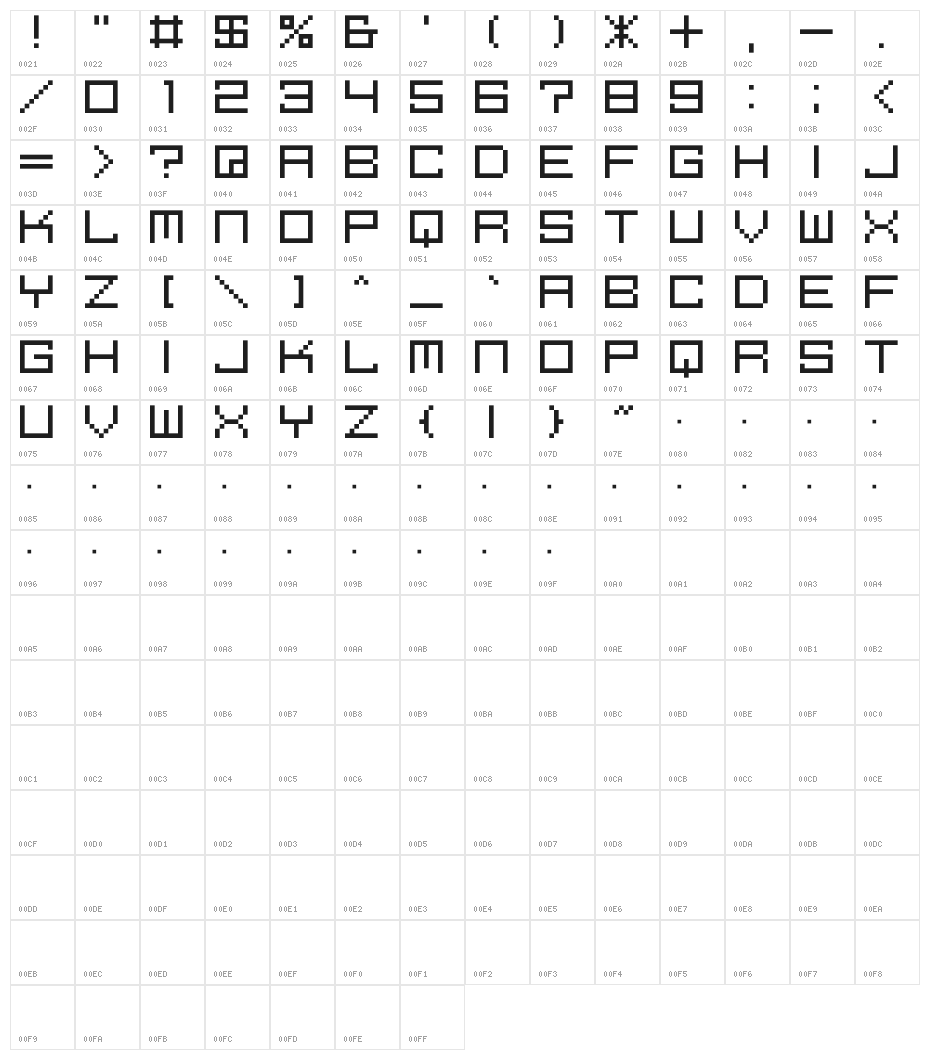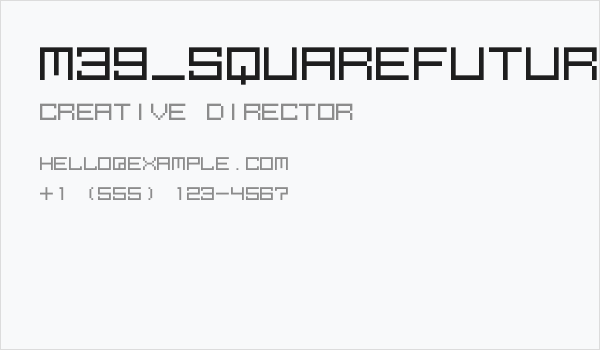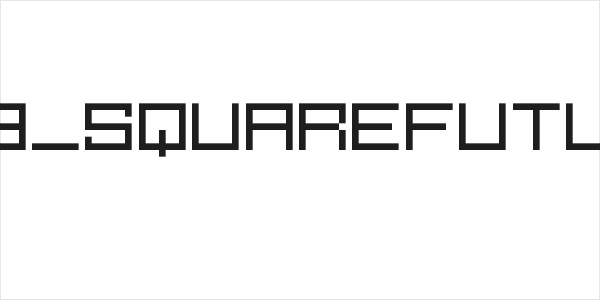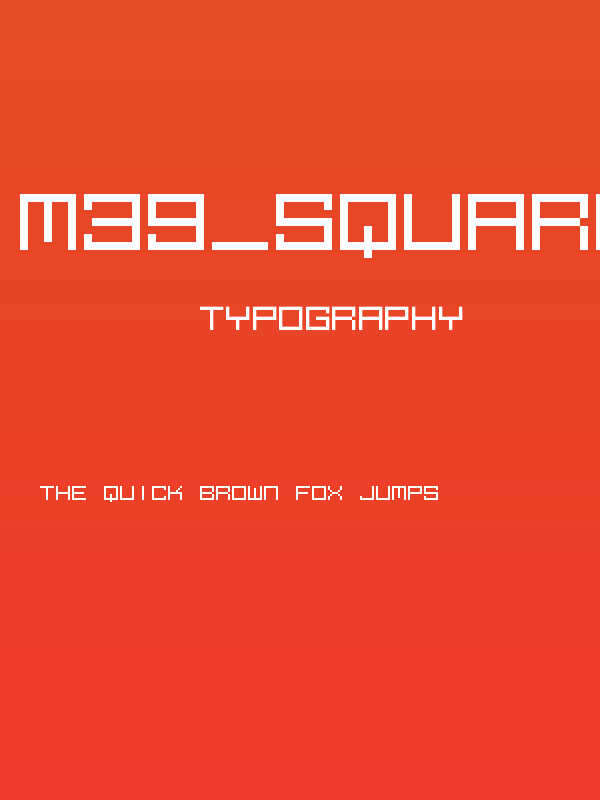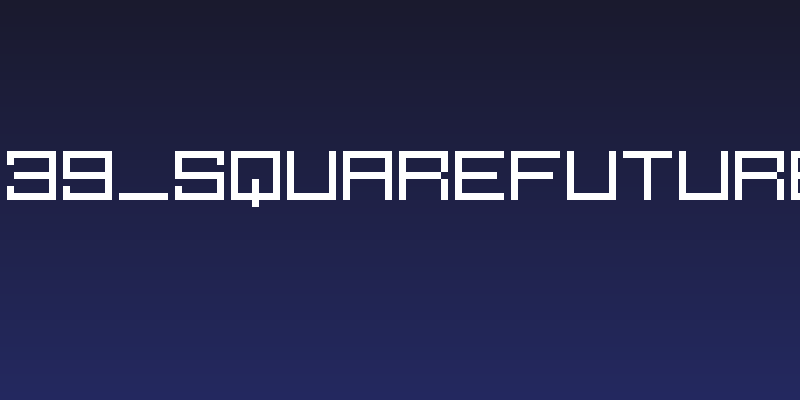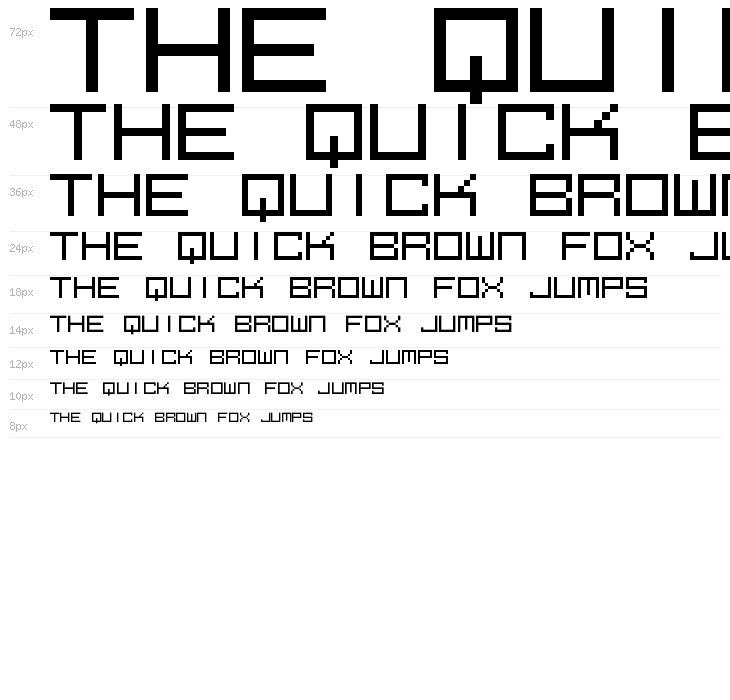
M39_SQUAREFUTURE Font
M39_SQUAREFUTURE Description
This font features a geometric, pixelated design reminiscent of digital displays and retro video games. Each character is constructed with a grid-like precision, giving it a distinctly modern and futuristic appearance. The uniformity in line thickness and the square-shaped curves contribute to its digital aesthetic. The uppercase and lowercase letters maintain a consistent height, enhancing readability while preserving the font's unique style. The numerals and special characters are designed with the same pixelated approach, ensuring a cohesive look across all elements. This font is ideal for projects that require a tech-savvy or retro gaming vibe.
Use CaseLogos, Headlines, Digital interfaces
Proposed ProjectsPerfect for video game design, tech branding, digital art projects, and retro-themed posters.